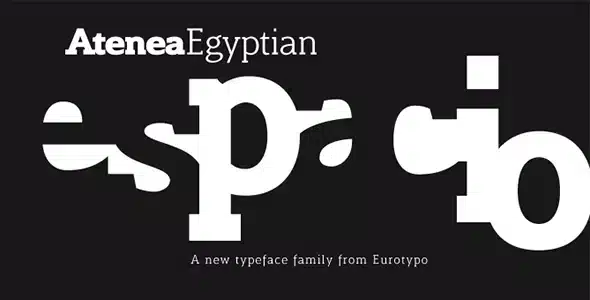
Atenea Egyptian Premium Font
Atenea Egyptian Premium Font is a Slab serif font, inspired by humanistic typographic references. It is a contemporary style based on high contrast and modular proportion with stylized rhythms. Atenea Egipcia includes standard and discretionary ligatures, small caps, fractions, old style and dash numbers.
Atenea Egyptian Premium Font
Atenea Egyptian Premium Font is a Slab serif font, inspired by humanistic typographic references. It is a contemporary style based on high contrast and modular proportion with stylized rhythms. Atenea Egipcia includes standard and discretionary ligatures, small caps, fractions, old style and dash numbers.